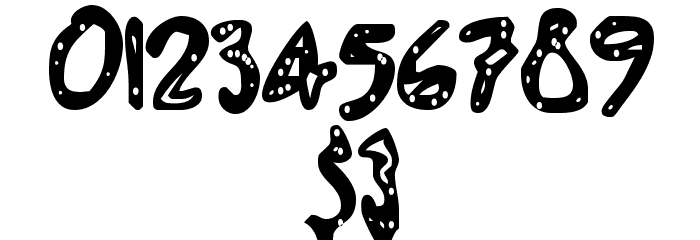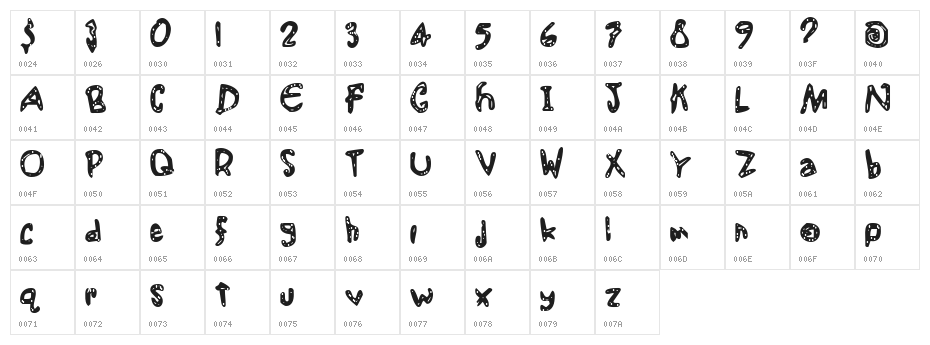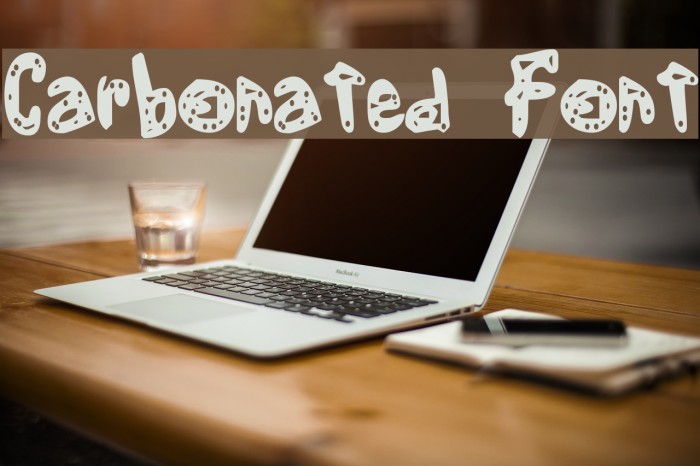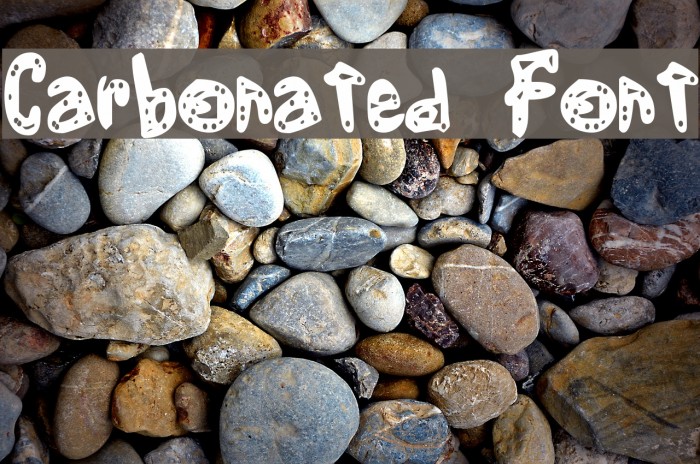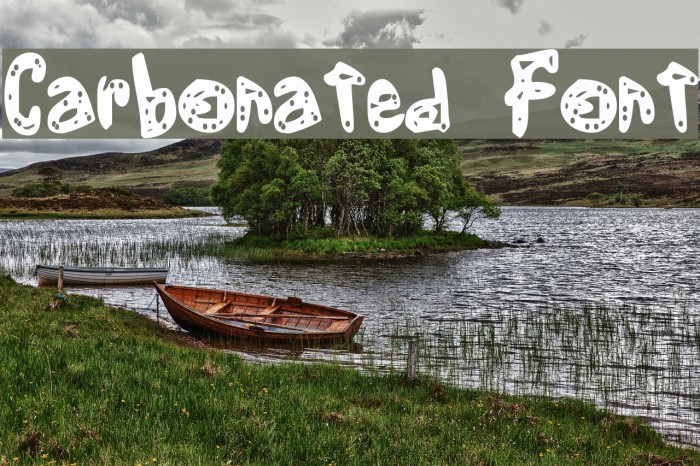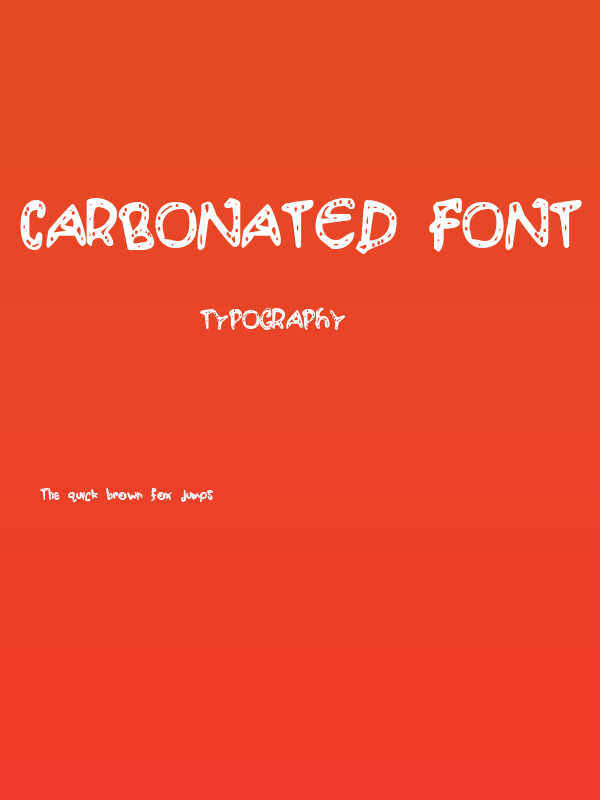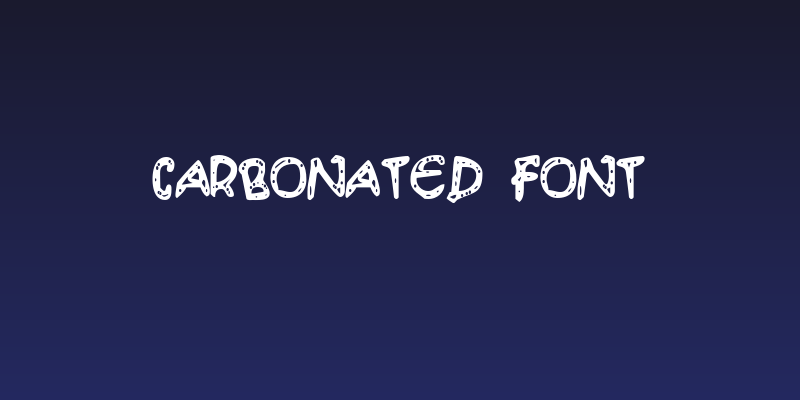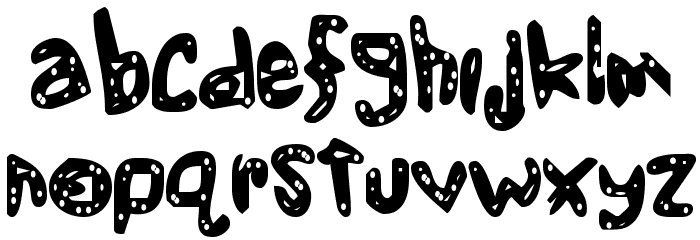
Carbonated Font Font
Carbonated Font Description
This playful and bubbly font features a unique design with circular cutouts resembling bubbles, giving it a lively and energetic appearance. The characters are bold and rounded, with a whimsical touch that makes them stand out. The uppercase and lowercase letters maintain a consistent style, while the numbers and special characters complement the overall theme. This font exudes a sense of fun and creativity, making it ideal for projects that require a lighthearted and engaging visual element.
| Proposed Projects | Ideal for children's books, party invitations, playful branding, and creative posters. |